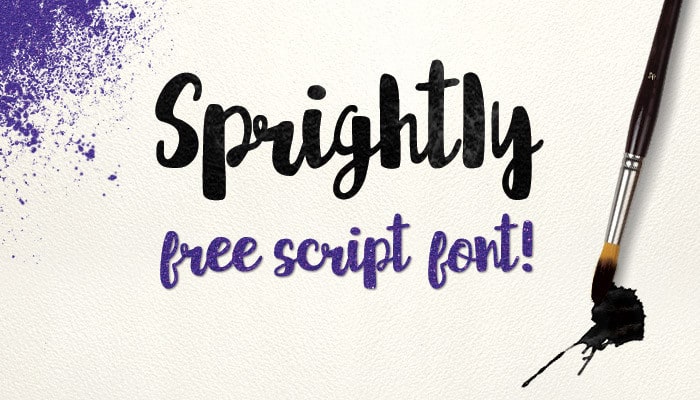
Introducing Sprightly Script Font. This is a beautiful boldscript font which personal touch of natural movement. It’s is Modern bold script. It is design and shared by Missy Meyer. It’s is modern handmade font, dinamic and also has beautiful opentype features. It’s is easily to use for your work ; Branding, Logo Design, Lettering, Clothing, Poster and others.